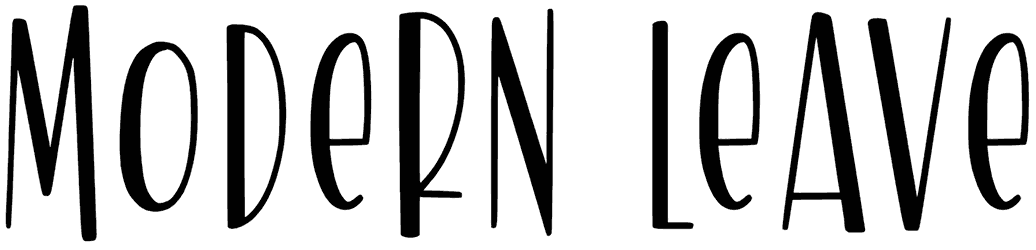
Modern Leave Font
Designed byAbo Daniel Studio
Modern Leave, a cool cartoon font with a mix of lower and uppercase letters that is both playful and informal, is an excellent choice for conveying a pleasant mood to your audience.
Grab this farmhouse font and put it to use in packaging, clothing, poster designs, and any other project that calls for a warm and friendly visual impact. If you have a look around, you’ll discover plenty of other options in our category.
MODERN LEAVES